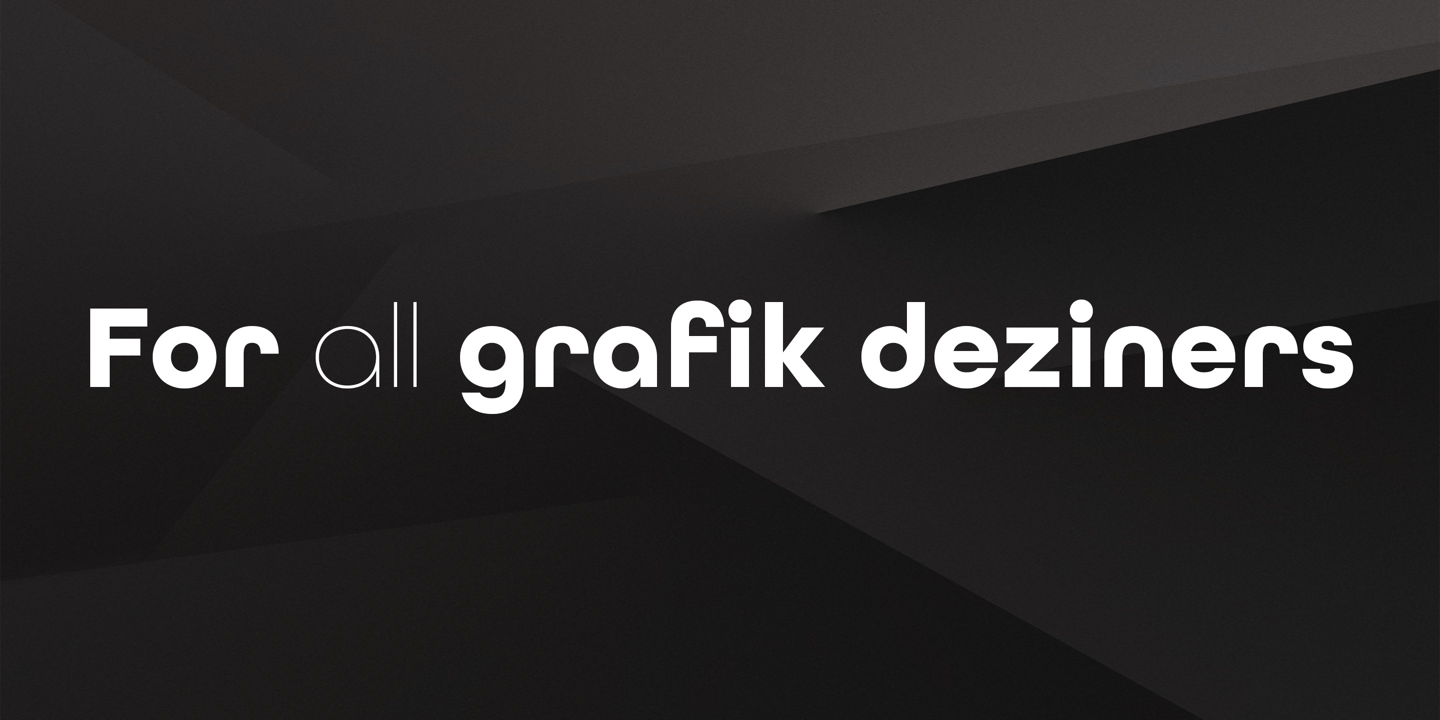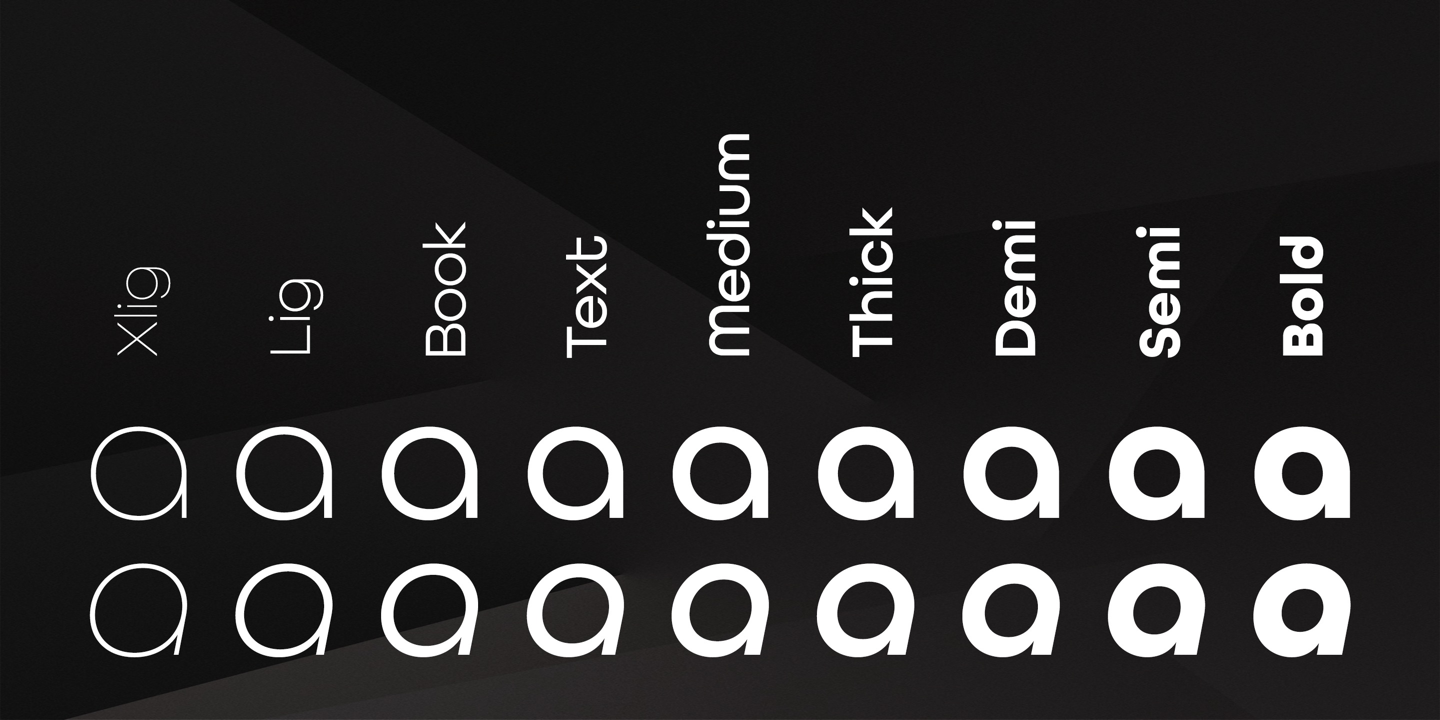
All Round Gothic Font - All round gothic is a geometric sans serif font inspired by classic styles such as avant garde gothic and futura. All round gothic is a font family inspired by classic sans serif fonts. This font is a structured geometric sans, but also creates a sweet and. It has 18 styles and family. Originally designed in 2012 by ryoichi tsunekawa, all round gothic is a font family inspired by classic sans serif fonts such as avant garde.
Originally designed in 2012 by ryoichi tsunekawa, all round gothic is a font family inspired by classic sans serif fonts such as avant garde. All round gothic is a font family inspired by classic sans serif fonts. It has 18 styles and family. This font is a structured geometric sans, but also creates a sweet and. All round gothic is a geometric sans serif font inspired by classic styles such as avant garde gothic and futura.
Originally designed in 2012 by ryoichi tsunekawa, all round gothic is a font family inspired by classic sans serif fonts such as avant garde. All round gothic is a font family inspired by classic sans serif fonts. This font is a structured geometric sans, but also creates a sweet and. It has 18 styles and family. All round gothic is a geometric sans serif font inspired by classic styles such as avant garde gothic and futura.
Originally designed in 2012 by ryoichi tsunekawa, all round gothic is a font family inspired by classic sans serif fonts such as avant garde. All round gothic is a font family inspired by classic sans serif fonts. All round gothic is a geometric sans serif font inspired by classic styles such as avant garde gothic and futura. This font is.
All round gothic is a geometric sans serif font inspired by classic styles such as avant garde gothic and futura. This font is a structured geometric sans, but also creates a sweet and. All round gothic is a font family inspired by classic sans serif fonts. It has 18 styles and family. Originally designed in 2012 by ryoichi tsunekawa, all.
Originally designed in 2012 by ryoichi tsunekawa, all round gothic is a font family inspired by classic sans serif fonts such as avant garde. This font is a structured geometric sans, but also creates a sweet and. All round gothic is a font family inspired by classic sans serif fonts. All round gothic is a geometric sans serif font inspired.
All round gothic is a font family inspired by classic sans serif fonts. All round gothic is a geometric sans serif font inspired by classic styles such as avant garde gothic and futura. This font is a structured geometric sans, but also creates a sweet and. It has 18 styles and family. Originally designed in 2012 by ryoichi tsunekawa, all.
Originally designed in 2012 by ryoichi tsunekawa, all round gothic is a font family inspired by classic sans serif fonts such as avant garde. All round gothic is a font family inspired by classic sans serif fonts. This font is a structured geometric sans, but also creates a sweet and. All round gothic is a geometric sans serif font inspired.
This font is a structured geometric sans, but also creates a sweet and. All round gothic is a font family inspired by classic sans serif fonts. It has 18 styles and family. All round gothic is a geometric sans serif font inspired by classic styles such as avant garde gothic and futura. Originally designed in 2012 by ryoichi tsunekawa, all.
All round gothic is a geometric sans serif font inspired by classic styles such as avant garde gothic and futura. All round gothic is a font family inspired by classic sans serif fonts. This font is a structured geometric sans, but also creates a sweet and. Originally designed in 2012 by ryoichi tsunekawa, all round gothic is a font family.
It has 18 styles and family. This font is a structured geometric sans, but also creates a sweet and. All round gothic is a font family inspired by classic sans serif fonts. Originally designed in 2012 by ryoichi tsunekawa, all round gothic is a font family inspired by classic sans serif fonts such as avant garde. All round gothic is.
All round gothic is a geometric sans serif font inspired by classic styles such as avant garde gothic and futura. It has 18 styles and family. This font is a structured geometric sans, but also creates a sweet and. All round gothic is a font family inspired by classic sans serif fonts. Originally designed in 2012 by ryoichi tsunekawa, all.
This font is a structured geometric sans, but also creates a sweet and. All round gothic is a geometric sans serif font inspired by classic styles such as avant garde gothic and futura. It has 18 styles and family. Originally designed in 2012 by ryoichi tsunekawa, all round gothic is a font family inspired by classic sans serif fonts such.
All Round Gothic Is A Geometric Sans Serif Font Inspired By Classic Styles Such As Avant Garde Gothic And Futura.
Originally designed in 2012 by ryoichi tsunekawa, all round gothic is a font family inspired by classic sans serif fonts such as avant garde. All round gothic is a font family inspired by classic sans serif fonts. This font is a structured geometric sans, but also creates a sweet and. It has 18 styles and family.